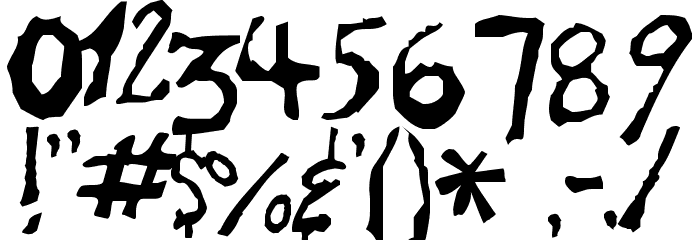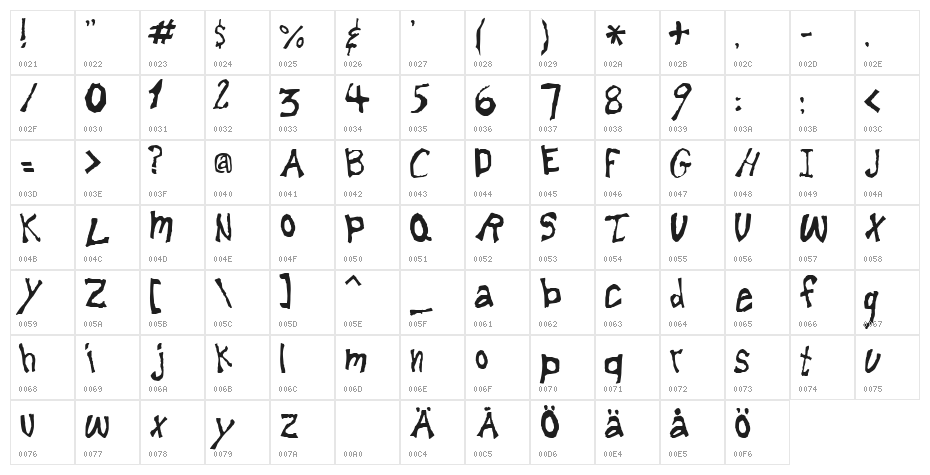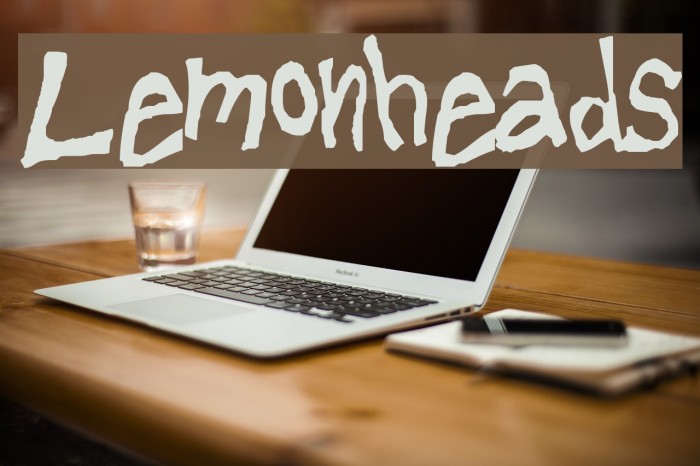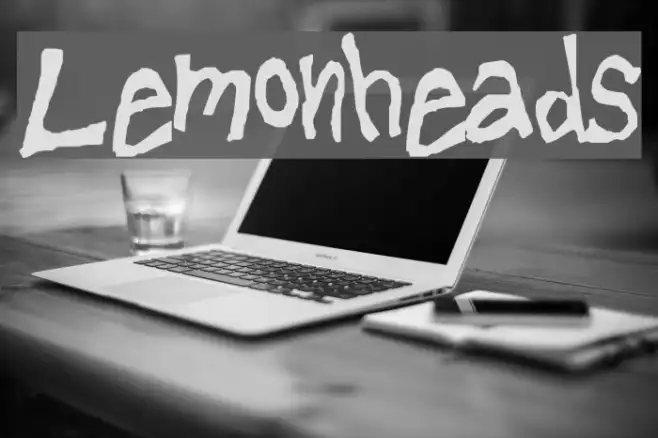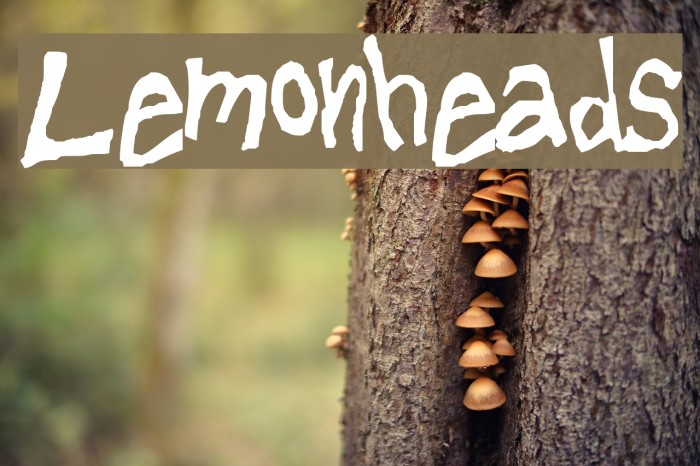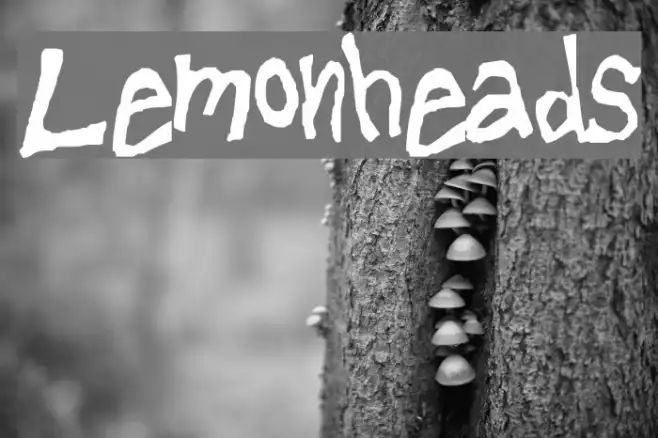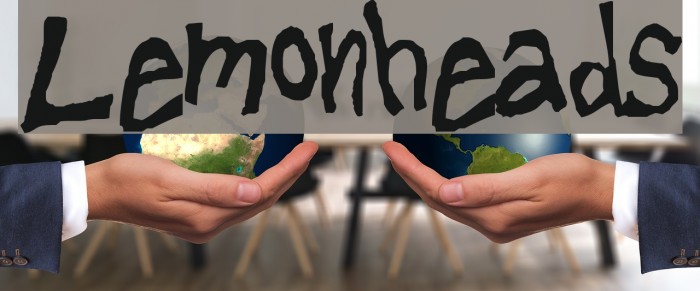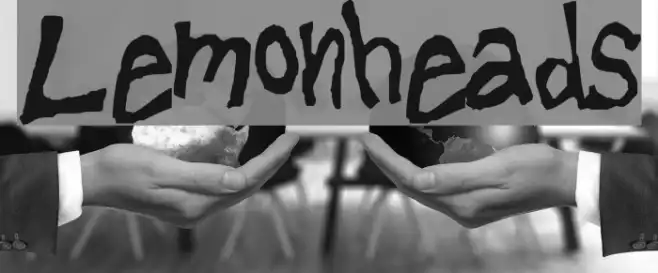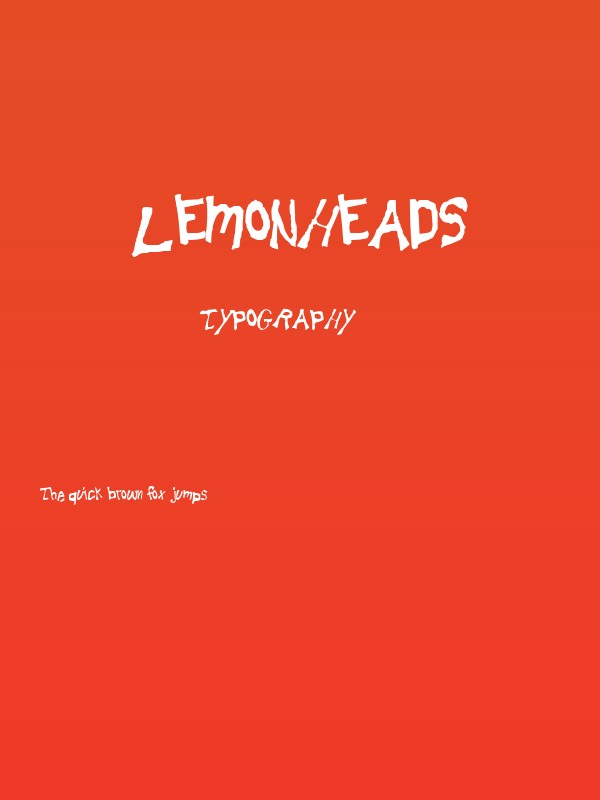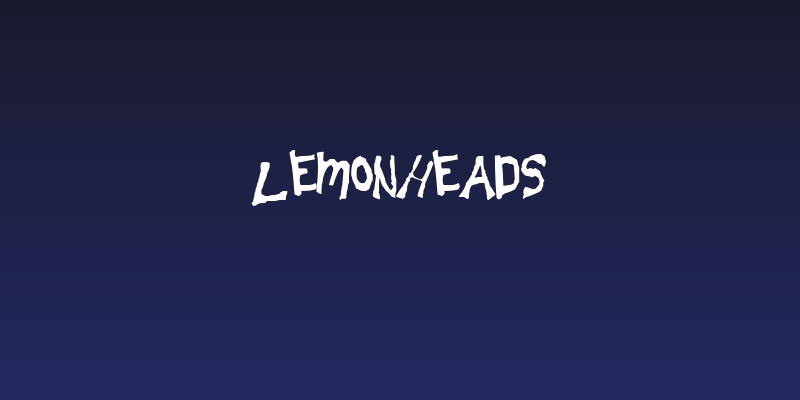
Lemonheads Font
Lemonheads Description
This font exhibits a playful and irregular style, characterized by its hand-drawn appearance. The letters have uneven edges and varying stroke thickness, giving it a whimsical and artistic feel. The uppercase and lowercase letters maintain a consistent style, with some letters appearing more exaggerated in their form. Numbers and special characters follow the same playful design, making the font suitable for creative and informal contexts. The overall look is dynamic and energetic, capturing attention with its unique and bold presentation.
| Use Case | Logos, Posters, Creative projects |
| Proposed Projects | Ideal for children's book covers, creative posters, artistic branding, and informal event invitations. |